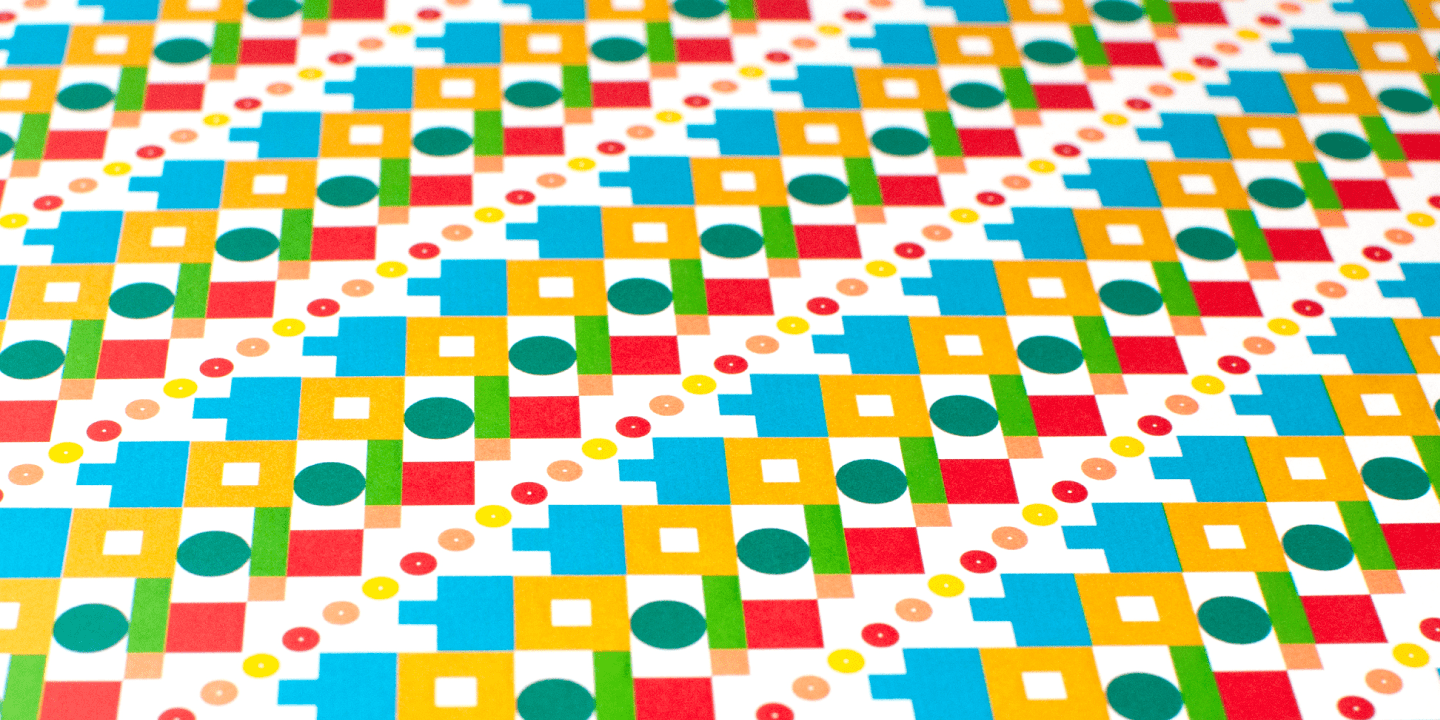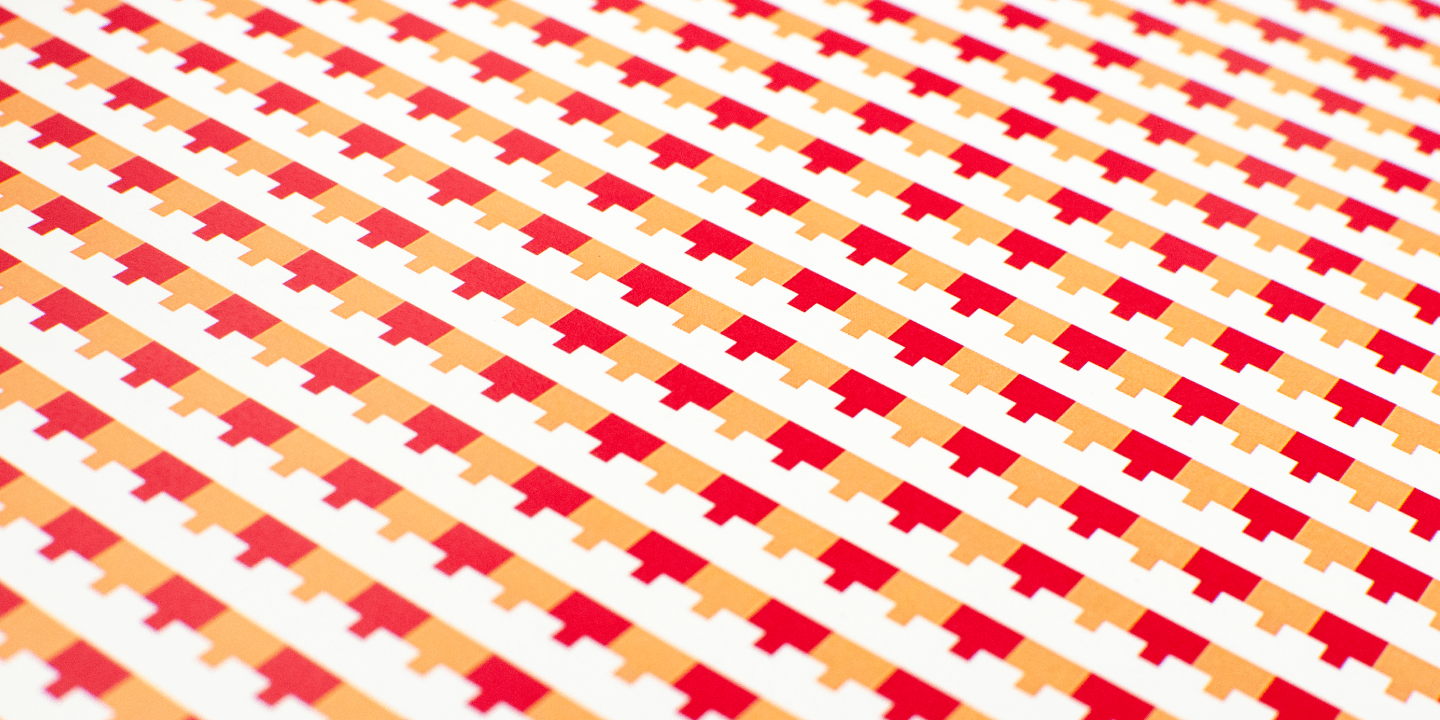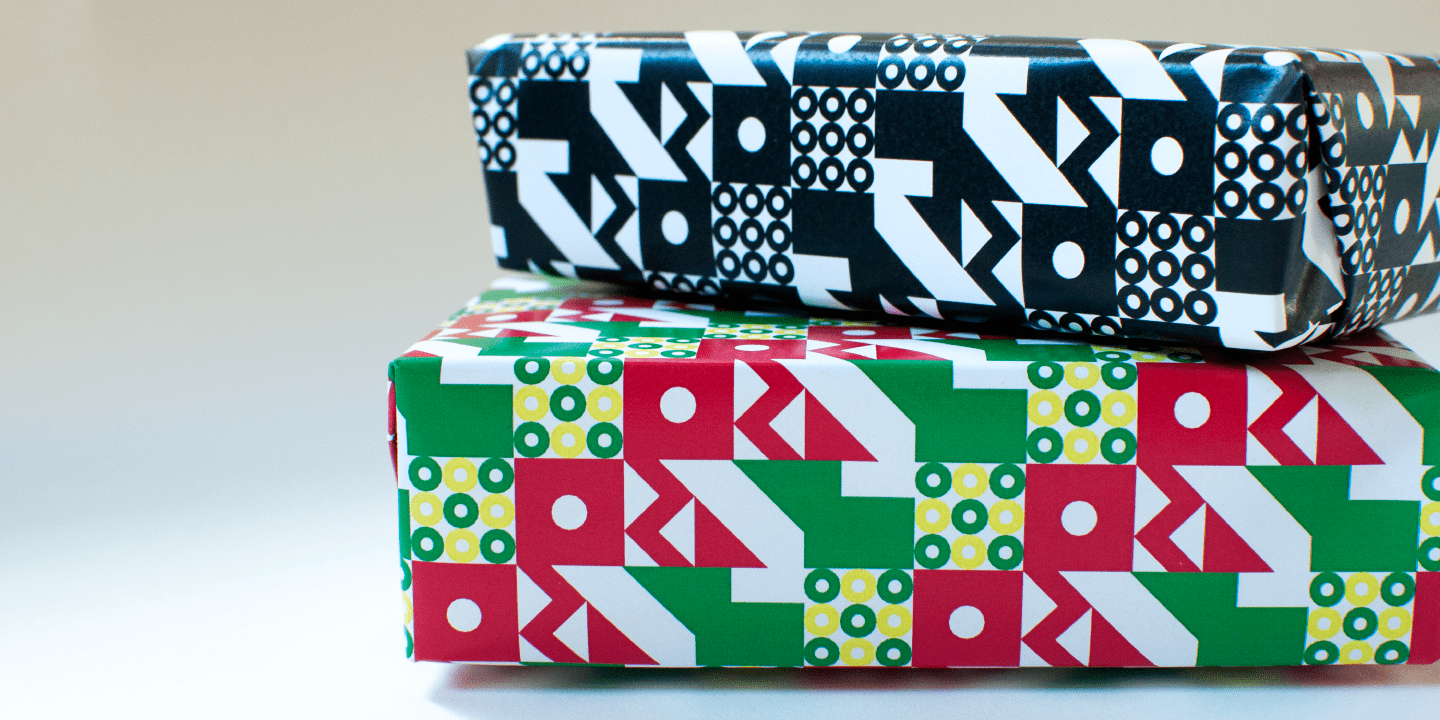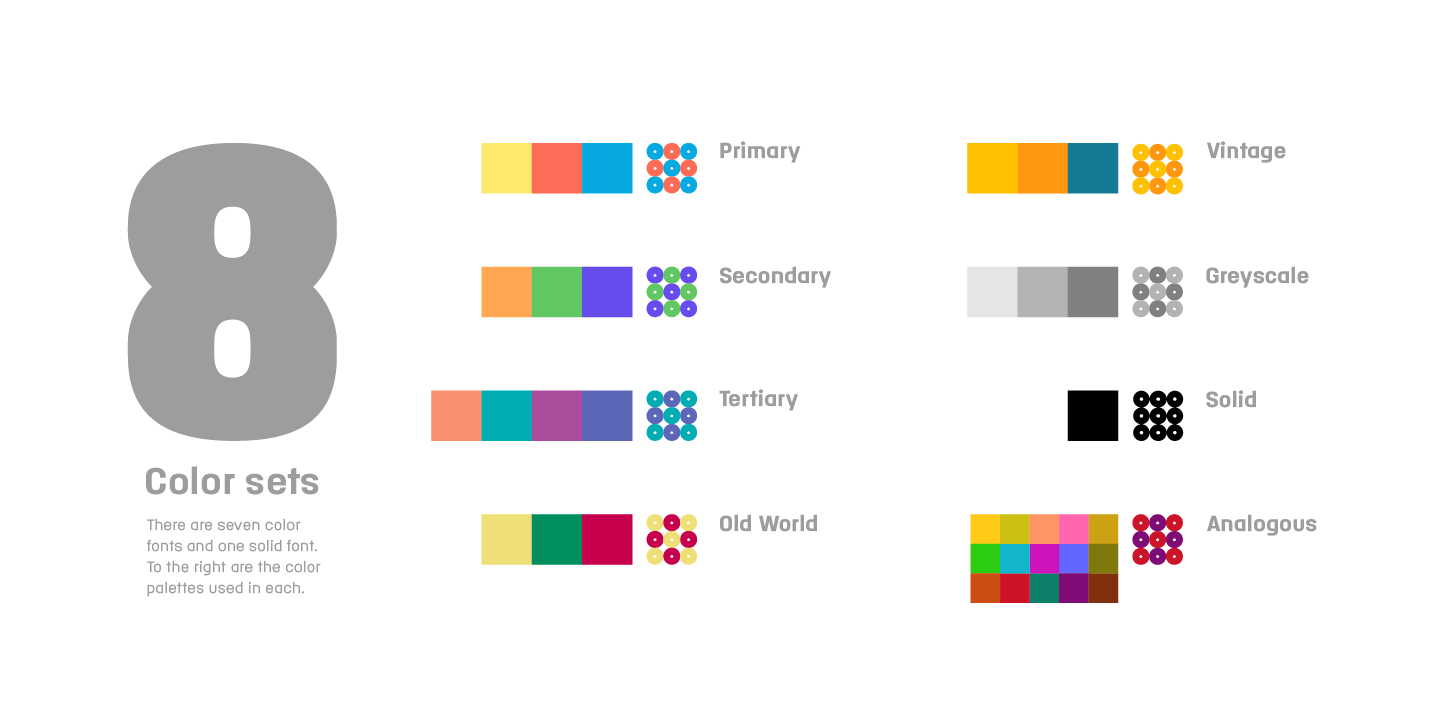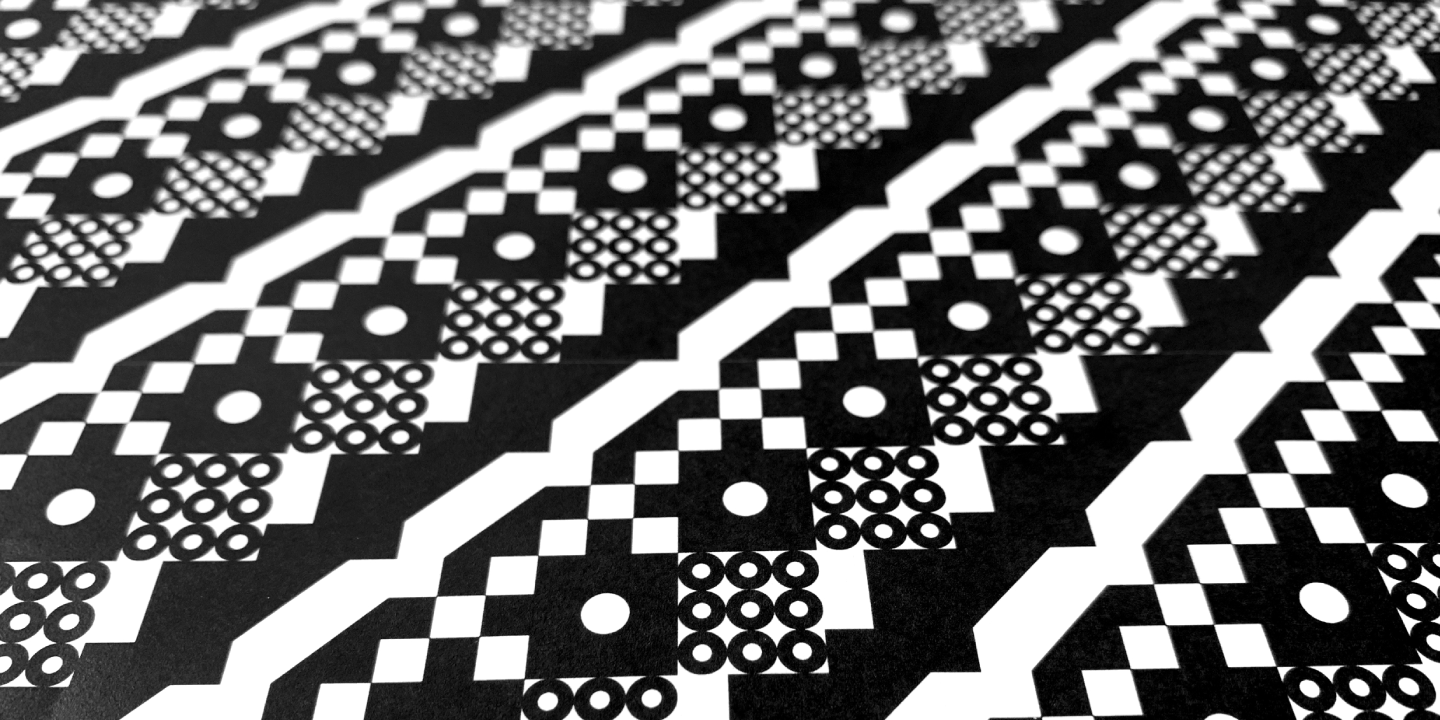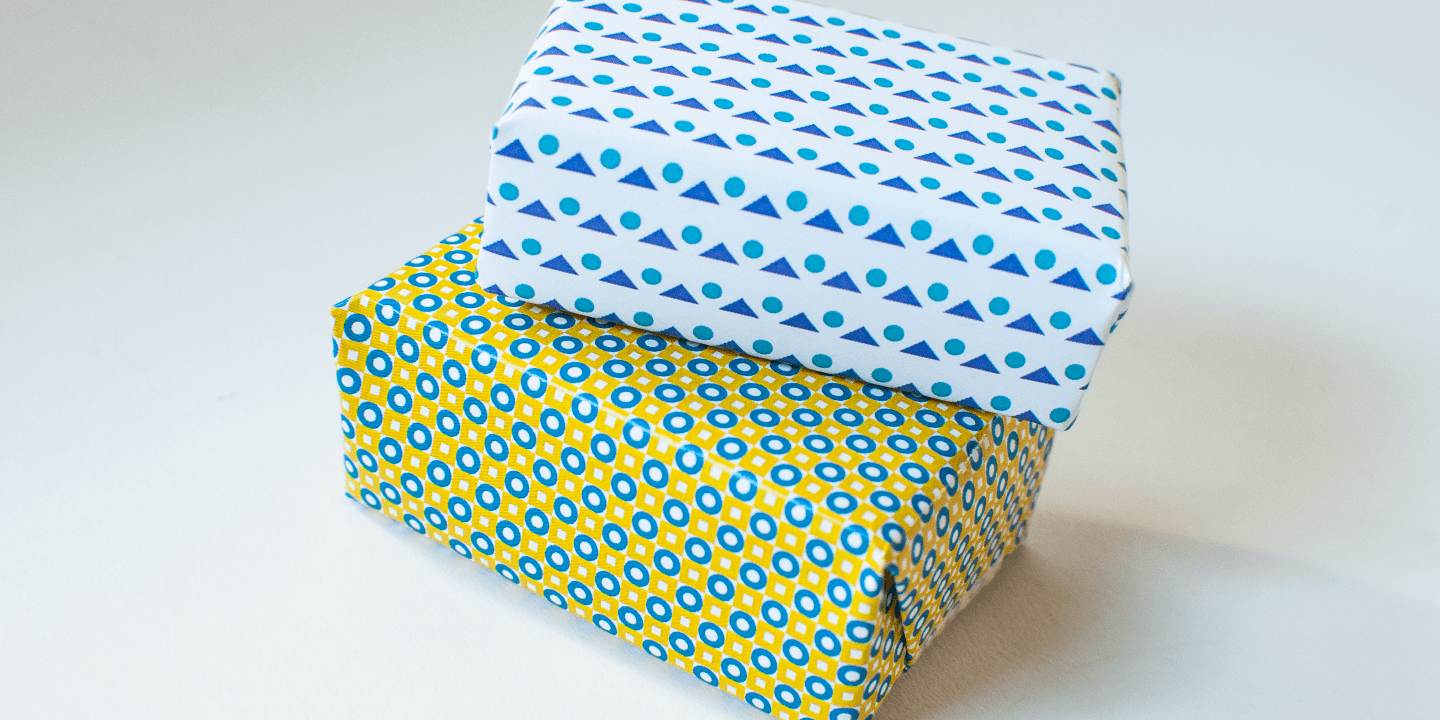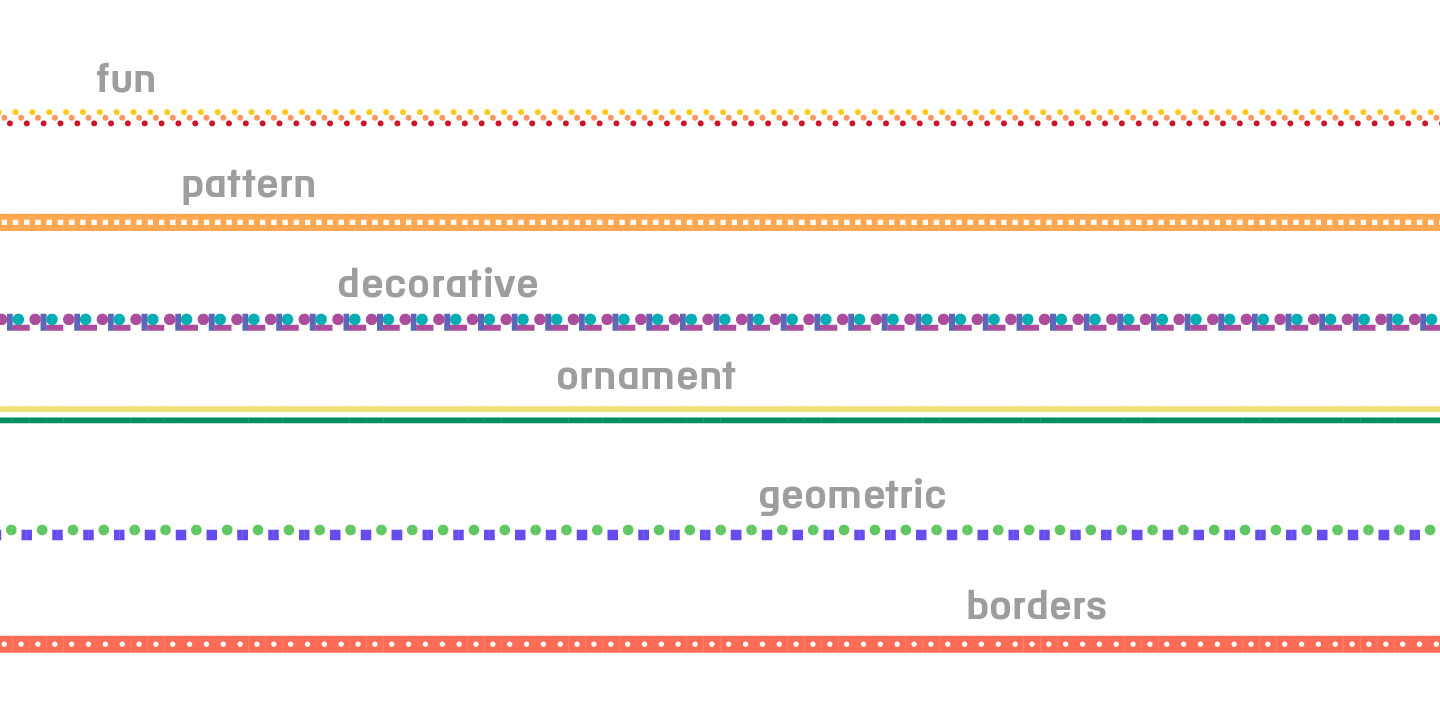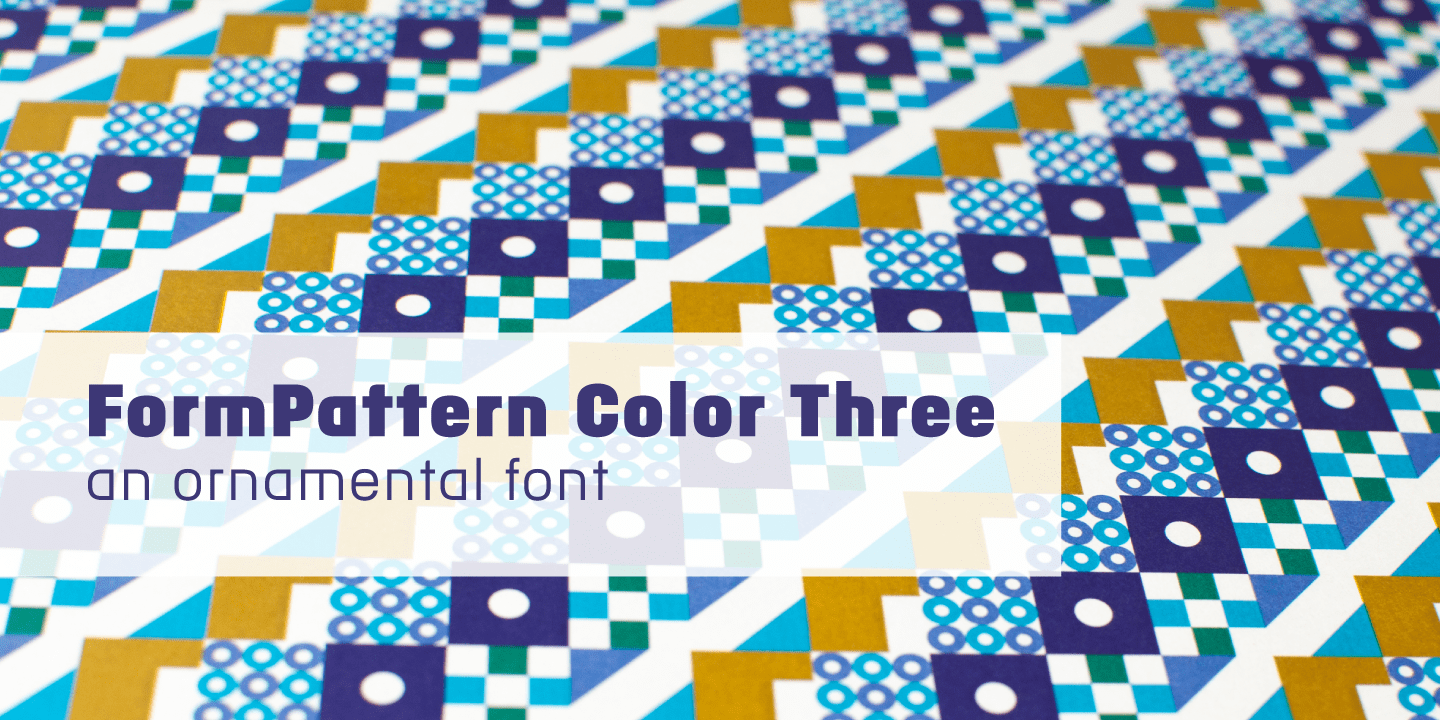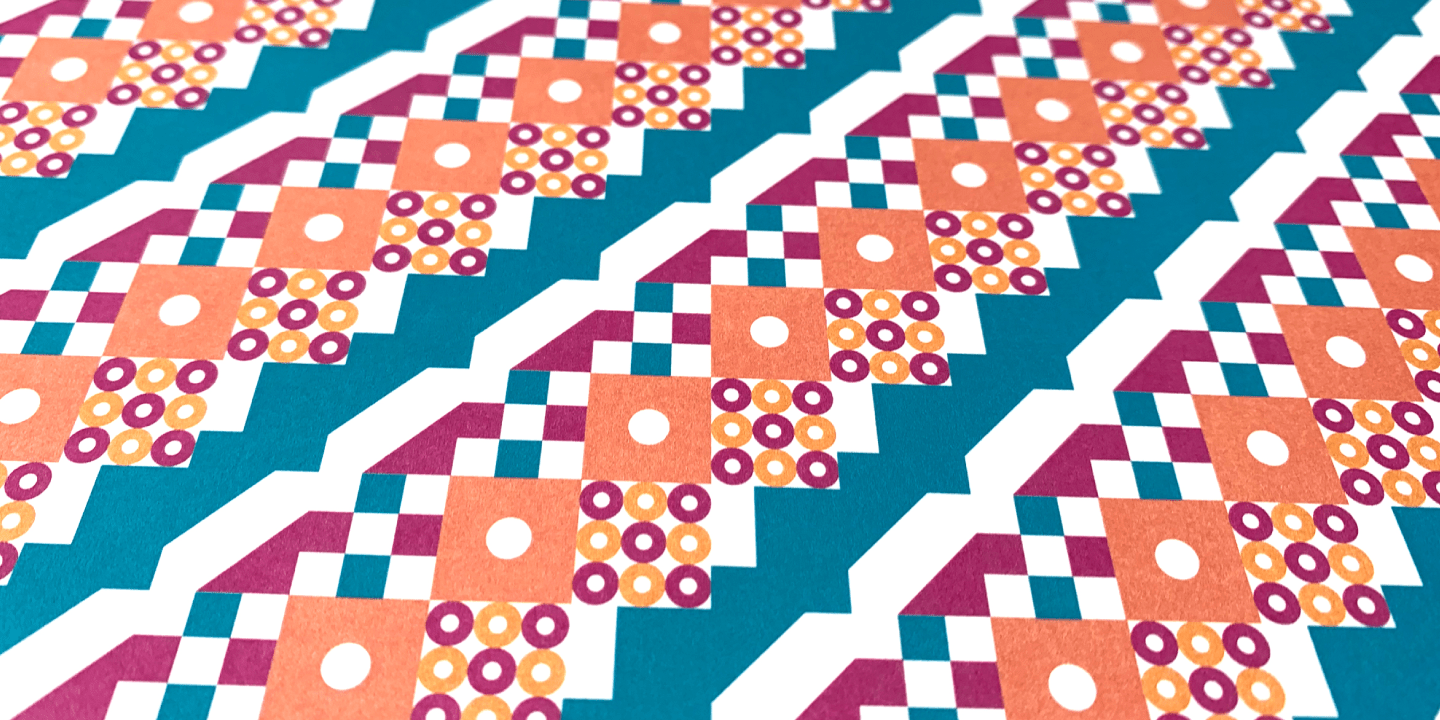
FormPattern Color Three
About FormPattern Color Three
FormPattern Color Three is an ornamental font for creating borders, frames, lines, and patterns. It is made up of a versatile set of interconnectable shapes that can flow together to make lines, borders, and patterns. Try different letter spacing to connect…